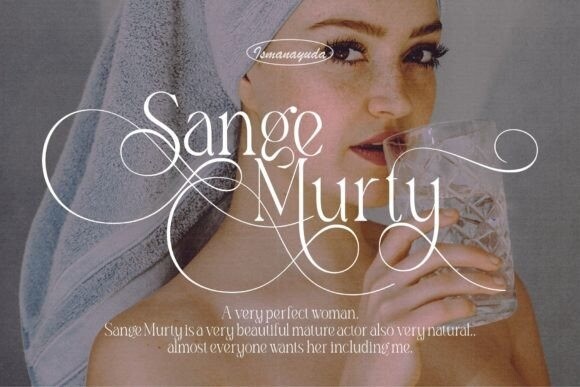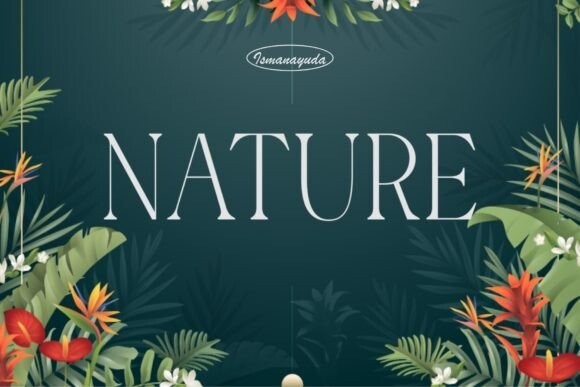
She Abeget Font
She Abeget is an exquisite serif font that exudes romance and sophistication. Its elegant curves and flourishes create a sense of timeless beauty, making it perfect for wedding invitations, elegant branding, and luxury designs. The delicate serifs add a touch of refinement, while the clean lines make it easy to read and versatile for various design projects.